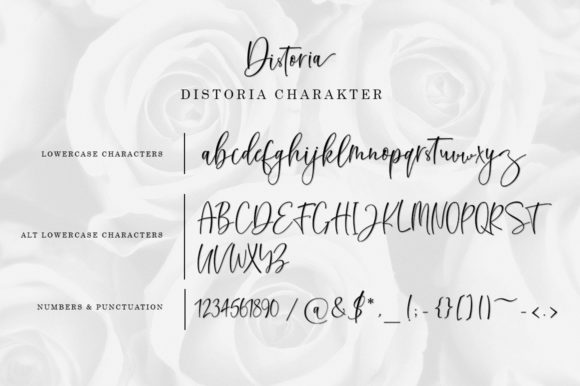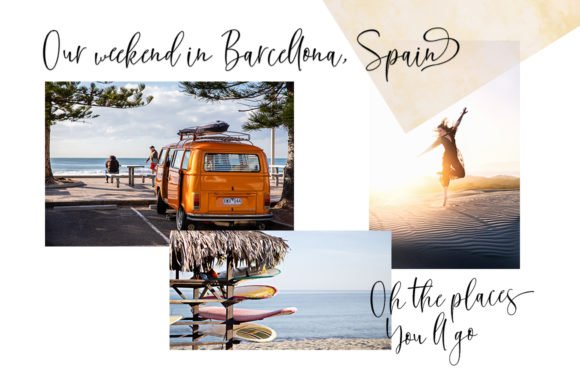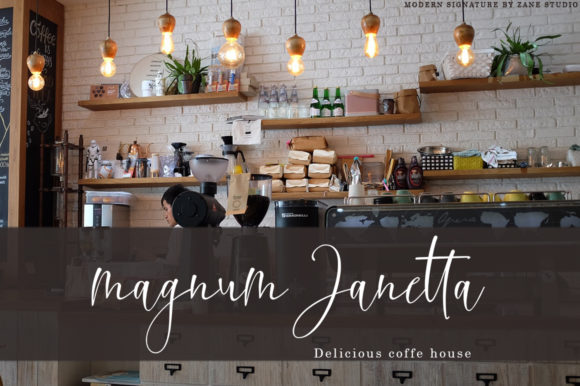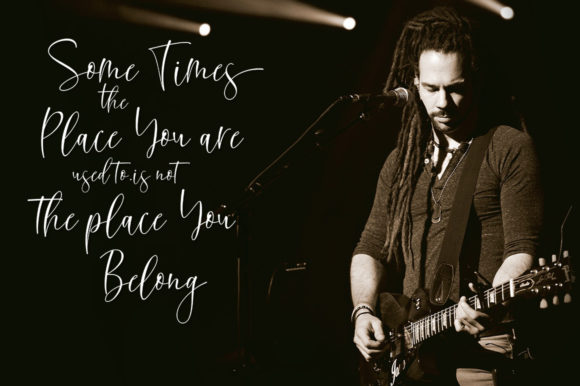
About Distoria Script Font
The Distoria is a classic signature script with an italic style. It’ will add an upscale and chic look to all your designs.
It’s perfect for logos, branding projects, household designs, equipment, product packaging, mugs, quotes, posters, shopping bags, and much more!